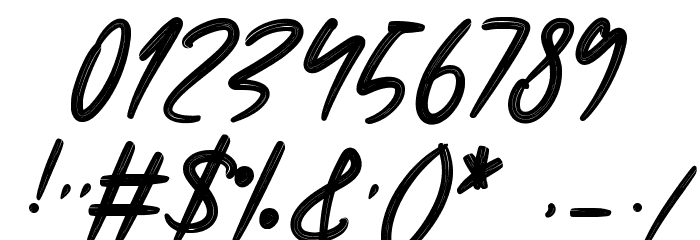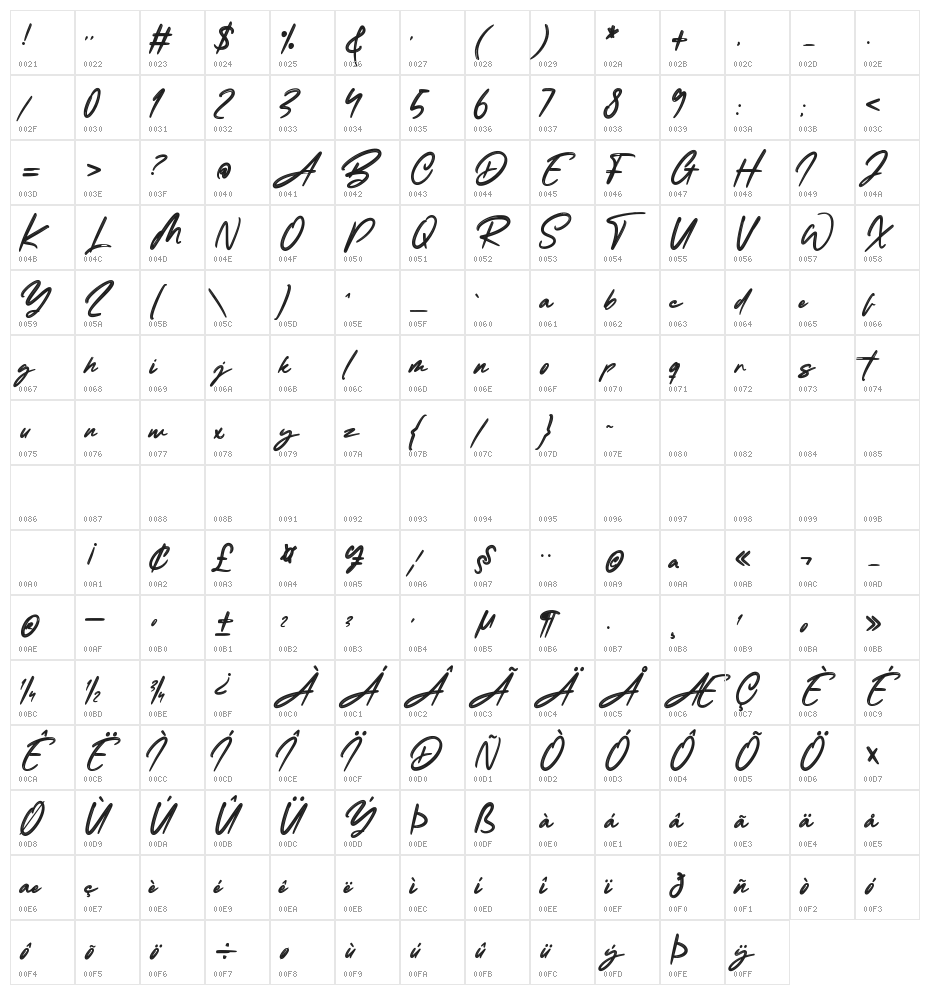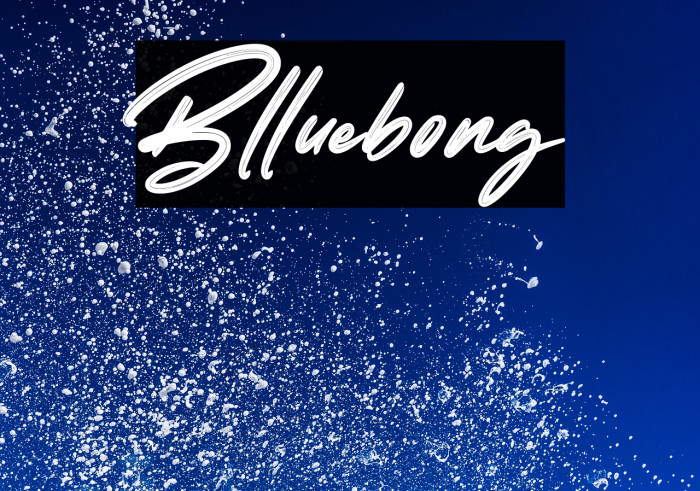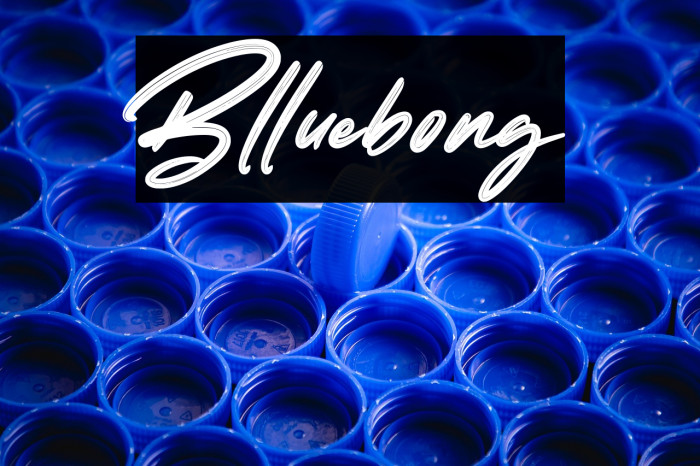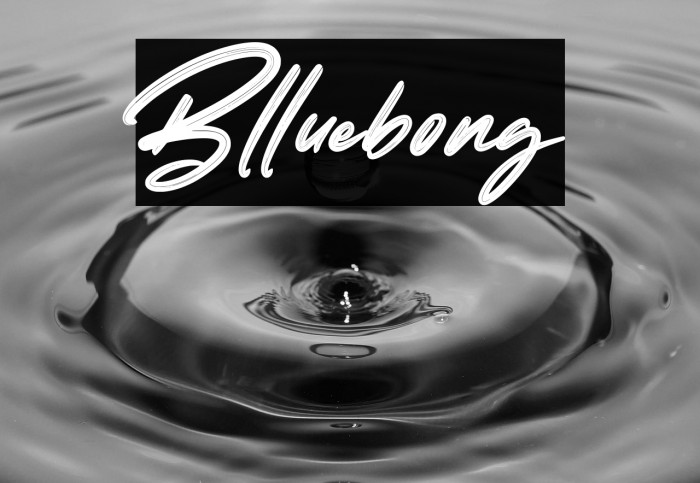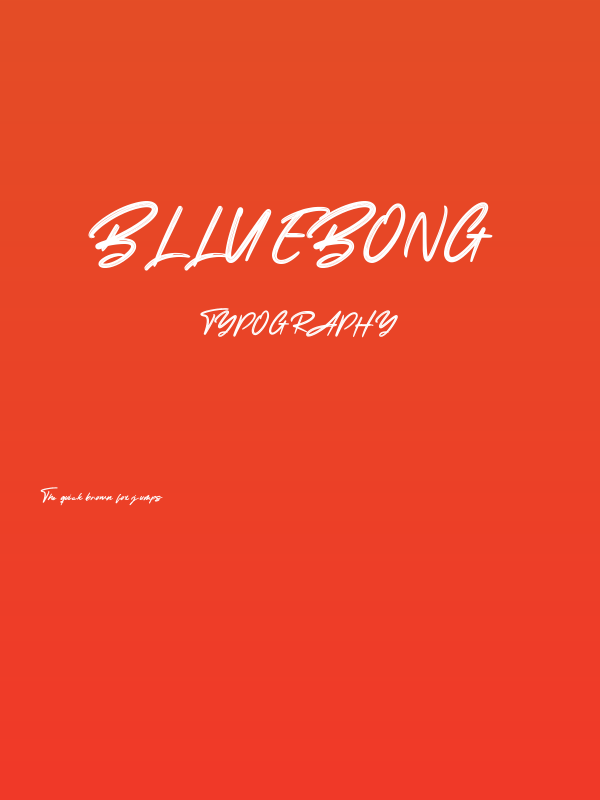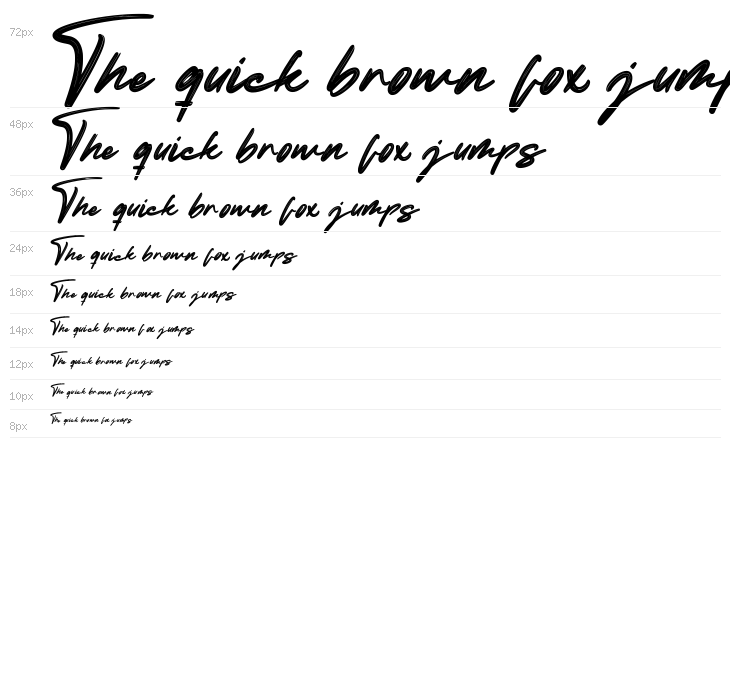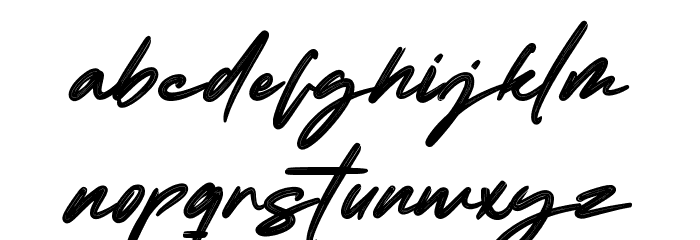
Blluebong Font
Blluebong Description
This font features a dynamic and fluid script style, characterized by its elegant and flowing letterforms. The uppercase letters are bold and sweeping, with a sense of movement and flair. The lowercase letters maintain a consistent rhythm, offering a harmonious blend of curves and loops. The numerals are equally expressive, matching the overall aesthetic with their rounded and slightly exaggerated forms. Special characters are integrated seamlessly, enhancing the font's versatility. This script font exudes a sense of creativity and personal touch, making it ideal for projects that require a handwritten or artistic feel.